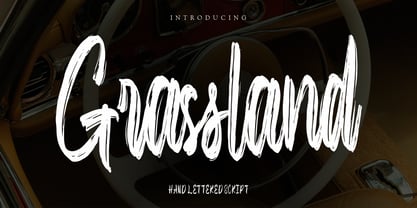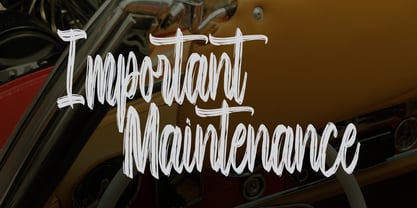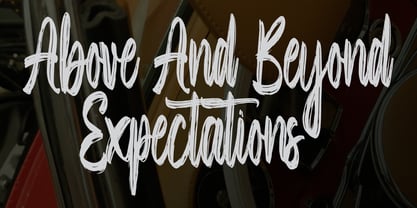
Grassland
von Gian Studio
Die Schriftfamilie Grassland wurde von Yusliana M Isa entworfen und von Gian Studio veröffentlicht. Grassland enthält 1 Stile.
Grassland is textured brush font, a contemporary approach to design, with a handmade natural and irregular baseline. Suitable for use in title design. Such as apparel, invitations, book tittles, stationery design, quotes, branding, logos, greeting cards, t-shirts, packaging design, posters and more.
Designers: Yusliana
Publisher: Gian Studio
Foundry: Gian Studio
Designer: Yusliana M Isa
Herausgeber: Gian Studio
Foundry: Gian Studio
Eigentümer des Designs: Gian Studio